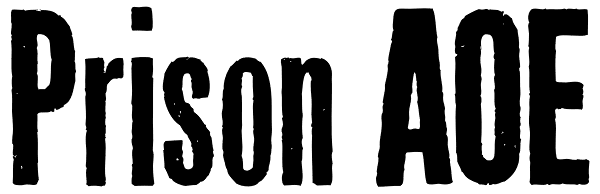
Prison AOE
An antique letterpress typeface digitally recreated with various grunge variations for a versatile font family. The Prison Pro Family OpenType versions contain an expanded language set, limitless fractionals, superiors, inferiors, tabular...